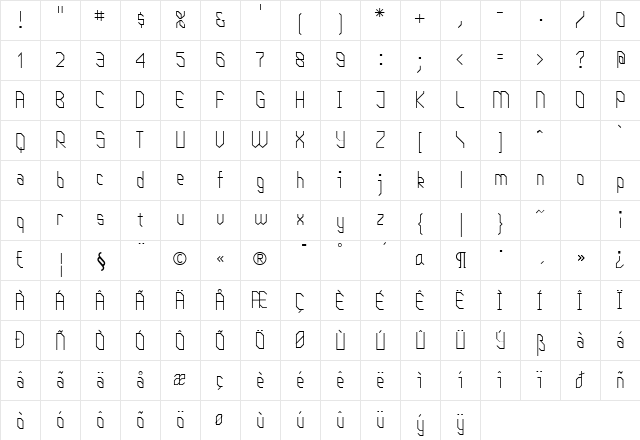
WhichitTwo Regular
Design Context for WhichitTwo Typeface
WhichitTwo takes a measured approach to typography — its balanced proportions and neutral character make it a reliable workhorse for both digital and print work.